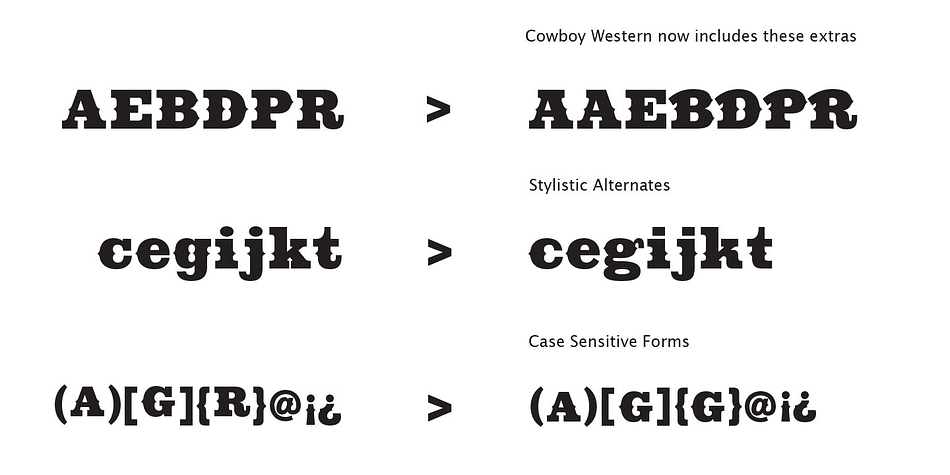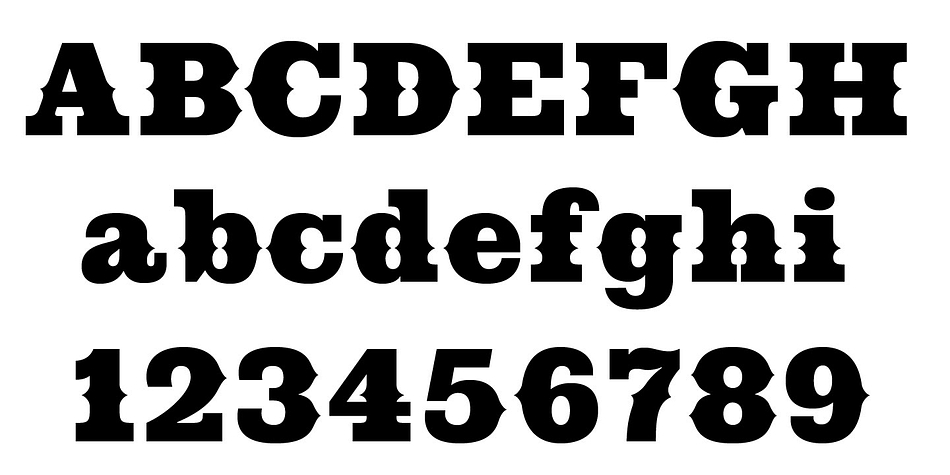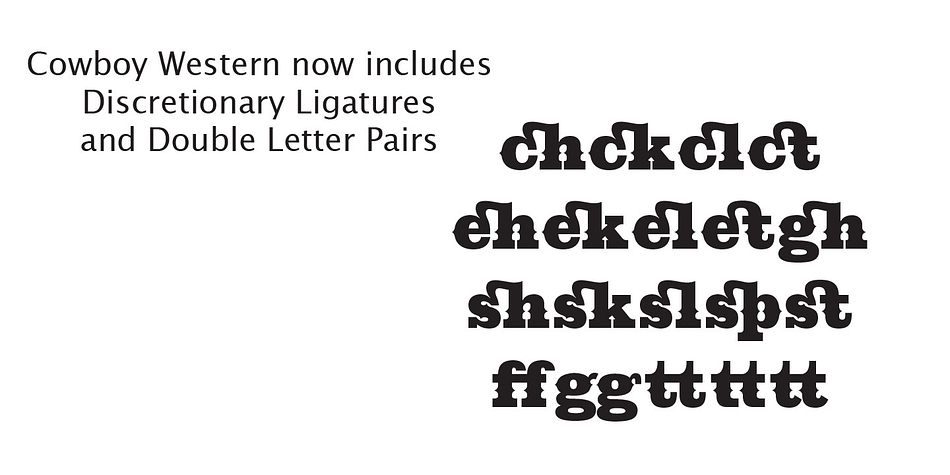
Cowboy Western is a western and wood type font family. This typeface has two styles and was published by FontMesa.
Cowboy Rodeo is based on an old Slab Serif Woodtype from the late 1800’s.
Styles | Western, Wood Type |